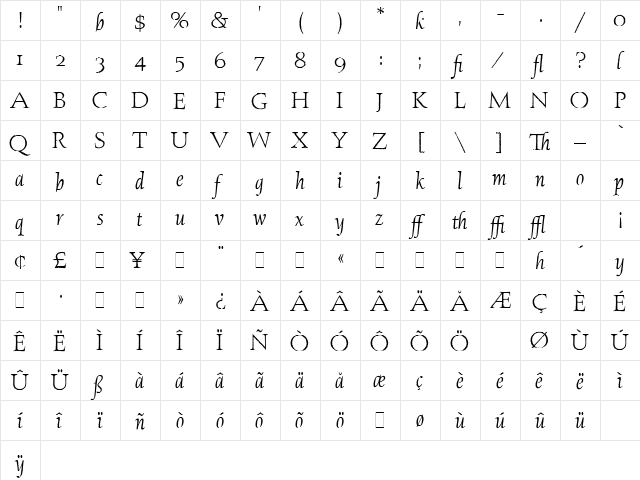
Aquinas LET Plain
Design Context for Aquinas LET Typeface
Aquinas LET takes a measured approach to typography — its balanced proportions and neutral character make it a reliable workhorse for both digital and print work.